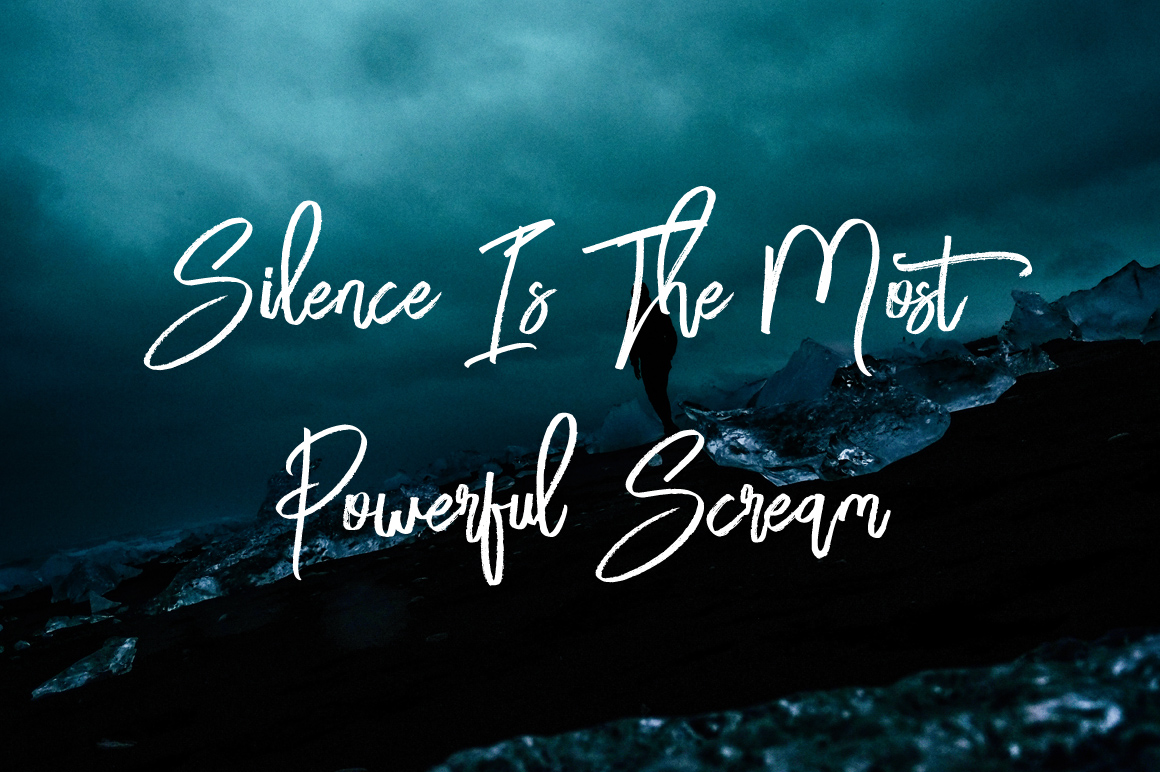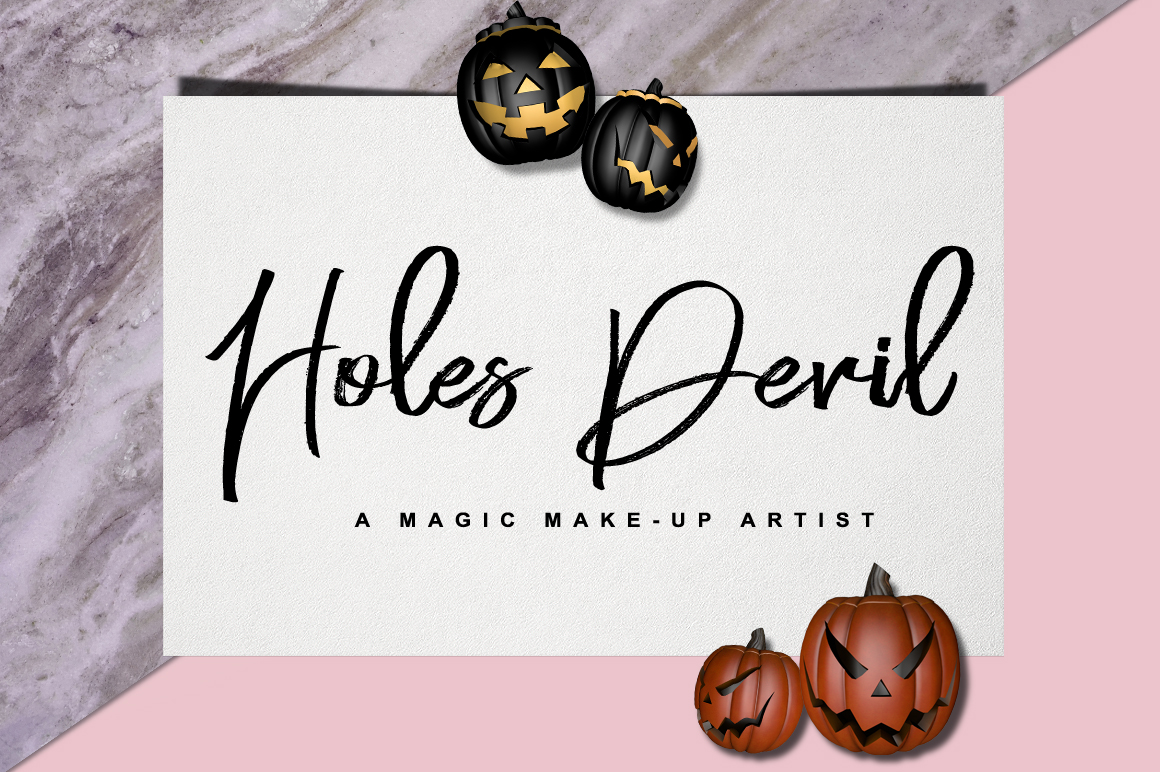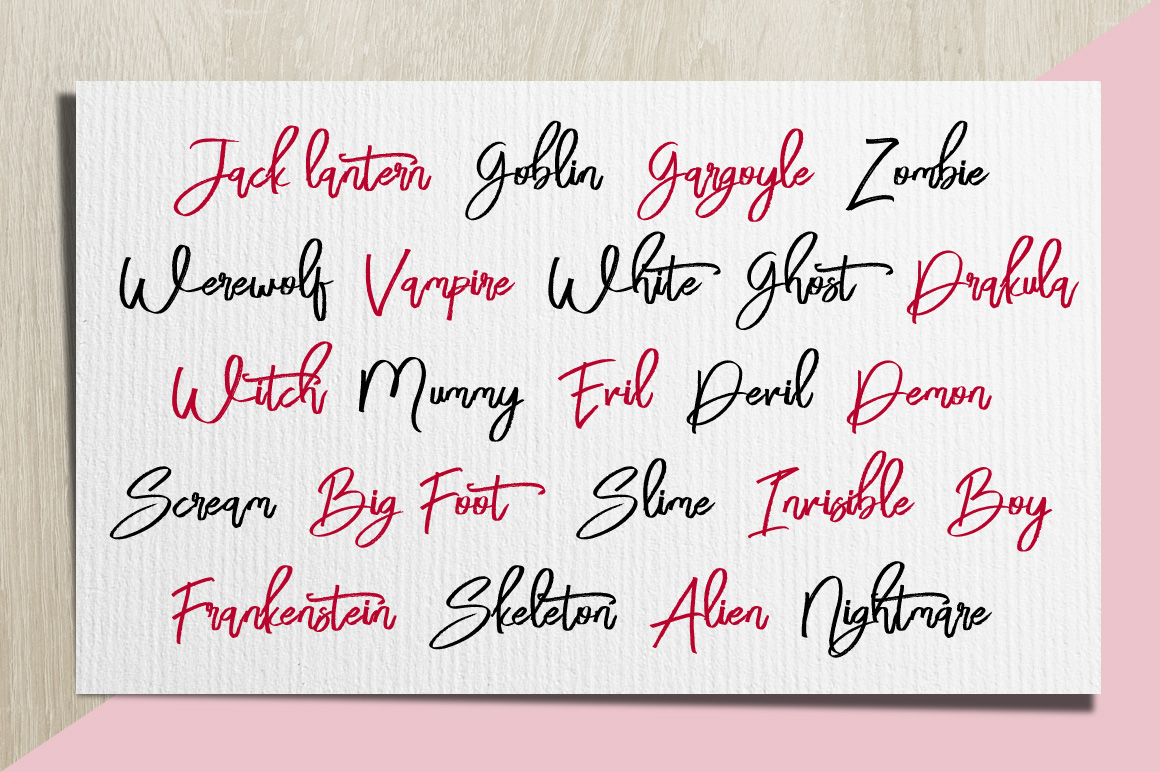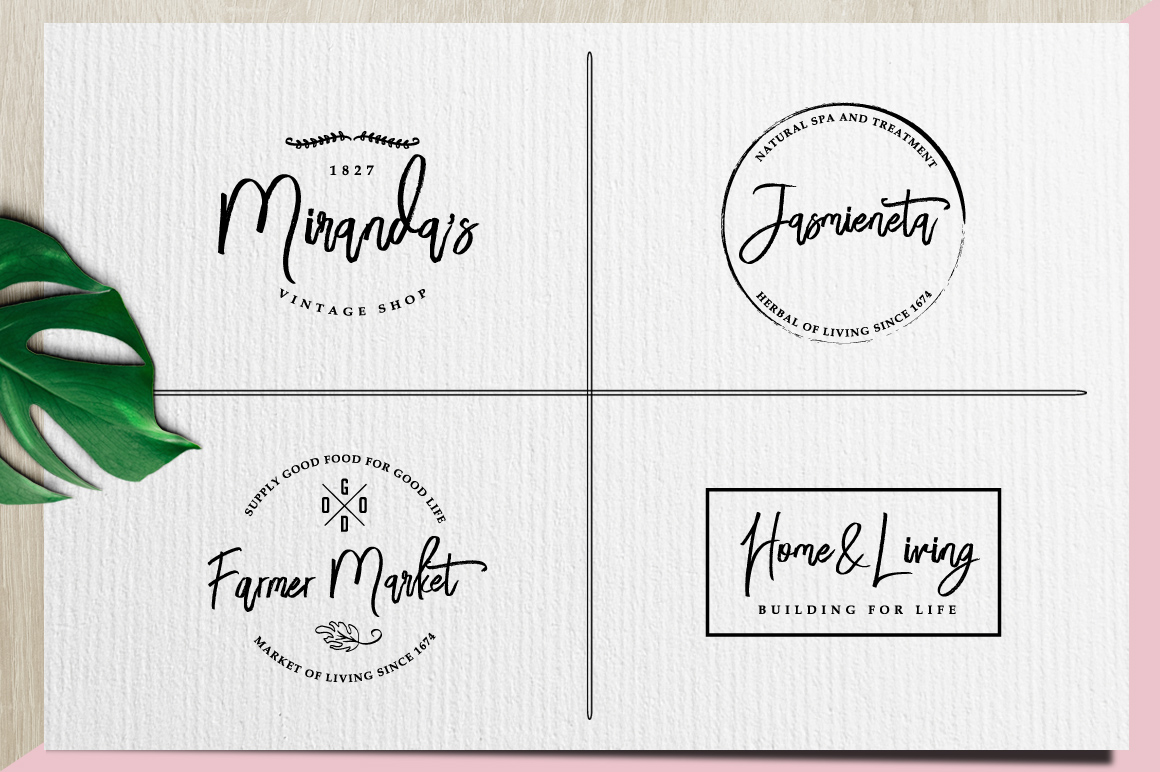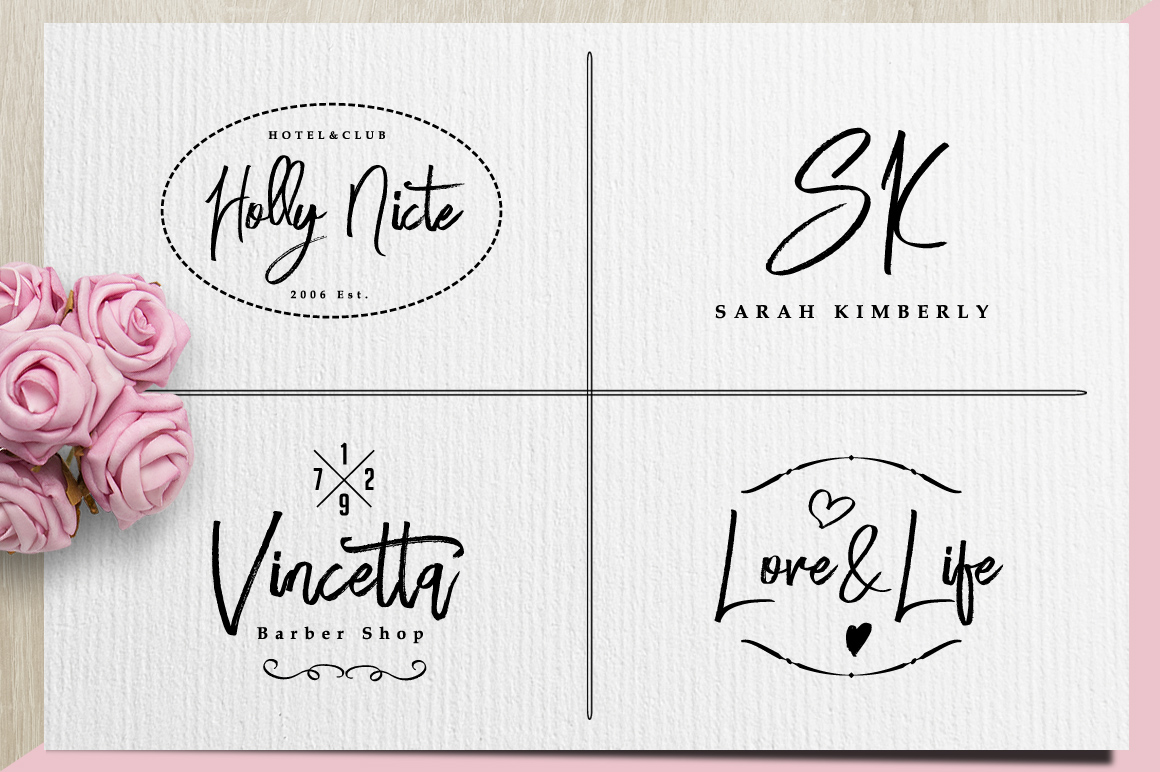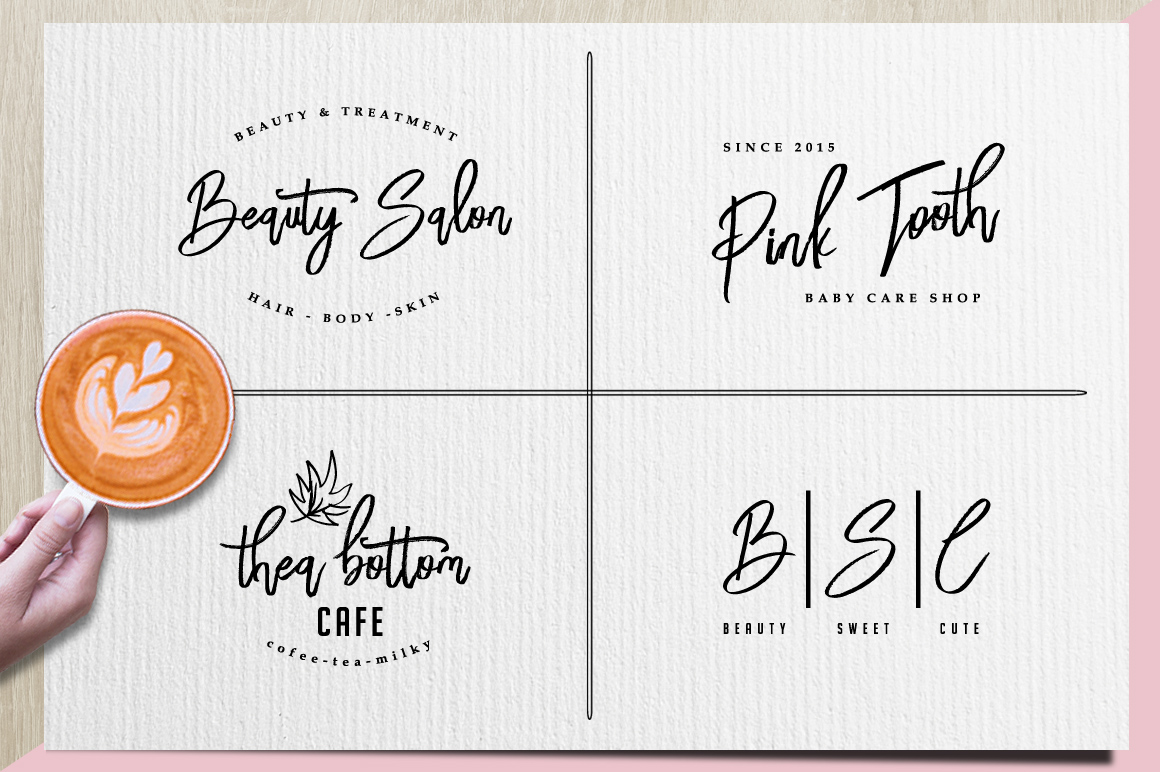
Bloomy Script Font: Elevate Your Designs with a Touch of Elegance
Bloomy Script Font is a stunningly beautiful and informal script font that has taken the design world by storm. Ideal for headlines and displays, this casual handwritten font is perfect for designers and crafters looking to add a touch of femininity and elegance to their projects.
The Charm of Bloomy Script Font
Bloomy Script Font boasts a unique and captivating charm that sets it apart from other fonts. Its informal and casual nature makes it perfect for designs that require a personal touch. The font’s handwritten style gives it a warm and inviting feel, making it ideal for projects that require a human touch.
Perfect for Headlines and Displays
Bloomy Script Font is specifically designed for headlines and displays, making it perfect for designers looking to create eye-catching titles and captions. Its elegant and refined style ensures that your text stands out from the crowd, grabbing the attention of your audience and leaving a lasting impression.
Add a Touch of Femininity to Your Designs
Bloomy Script Font is a great way to add a touch of femininity to your designs. Its delicate and refined style makes it perfect for projects that require a feminine touch. Whether you’re designing a logo, brochure, or website, Bloomy Script Font is sure to bring a touch of elegance and sophistication to your project.
Bloomy Script Font is incredibly versatile, making it perfect for a wide range of design projects. From wedding invitations and party decorations to branding and advertising, this font is sure to elevate your designs to the next level. Its flexibility and adaptability make it a great addition to any designer’s toolkit.
Why Choose Bloomy Script Font?
- Unique and Captivating Style: Bloomy Script Font boasts a unique and captivating style that sets it apart from other fonts.
- Informal and Casual Nature: Its informal and casual nature makes it perfect for designs that require a personal touch.
- Elegant and Refined Style: Bloomy Script Font’s elegant and refined style ensures that your text stands out from the crowd.
- Feminine and Breathtaking Appeal: This font is perfect for designers looking to add a touch of femininity and elegance to their projects.
Tips for Using Bloomy Script Font
Here are some tips for using Bloomy Script Font in your designs:
- Use it for Headlines and Displays: Bloomy Script Font is specifically designed for headlines and displays, making it perfect for titles and captions.
- Pair it with Other Fonts: Experiment with pairing Bloomy Script Font with other fonts to create a unique and visually appealing design.
- Use it for Branding and Advertising: Bloomy Script Font is perfect for branding and advertising projects that require a touch of elegance and sophistication.
Bloomy Script Font is a beautiful and informal script font that is perfect for designers and crafters looking to add a touch of elegance and femininity to their projects. Its unique and captivating style, informal and casual nature, and elegant and refined style make it a great addition to any designer’s toolkit. Whether you’re designing a logo, brochure, or website, Bloomy Script Font is sure to elevate your designs to the next level.